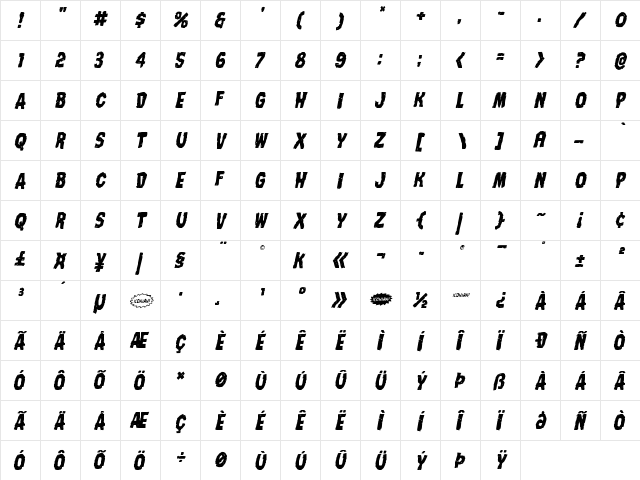
Nightmare Alley Italic Italic
Design Context for Nightmare Alley Italic Typeface
Nightmare Alley Italic is a composed and adaptable typeface that performs quietly and consistently across a wide range of design contexts. The dynamic lean of this cut emphasises speed and emphasis in any layout.